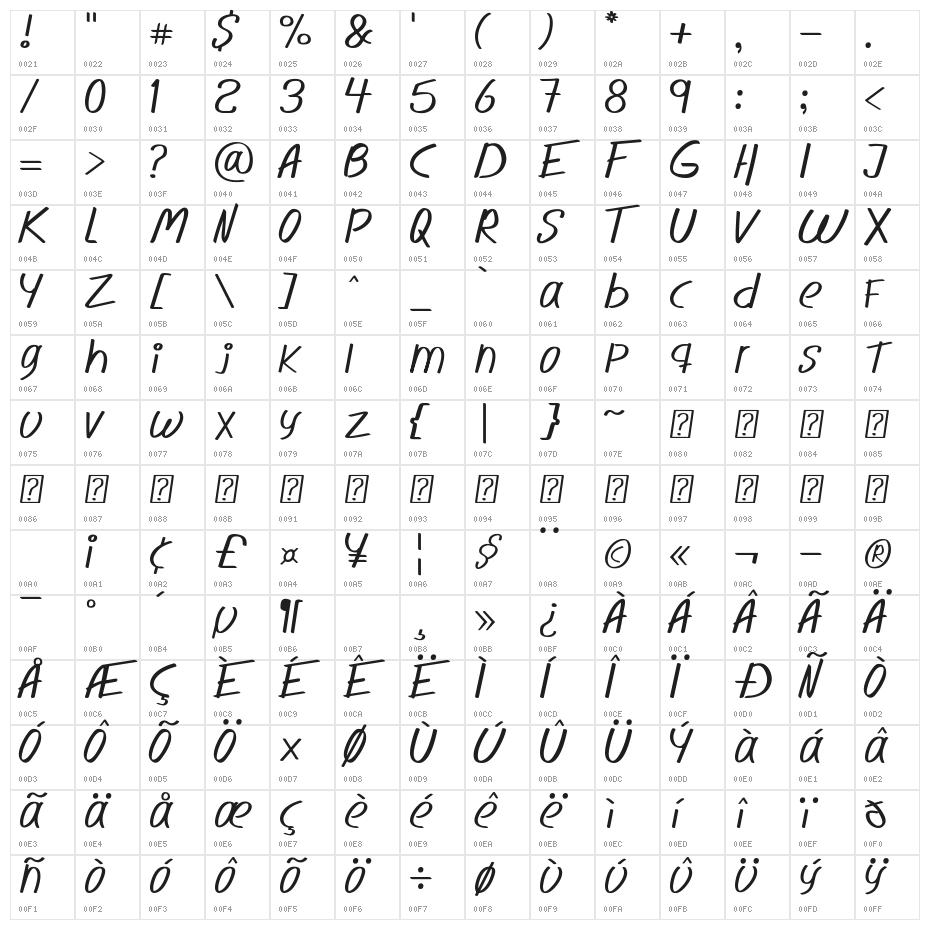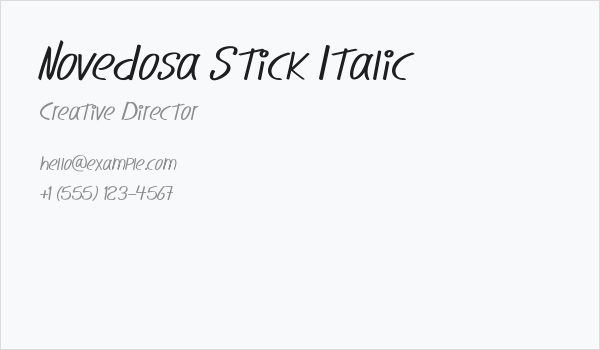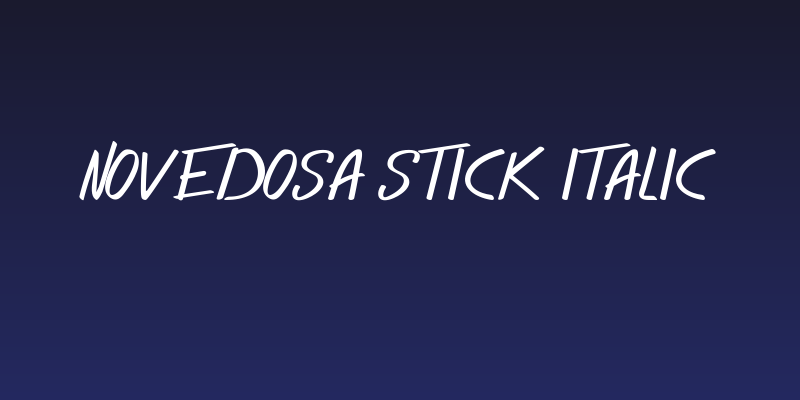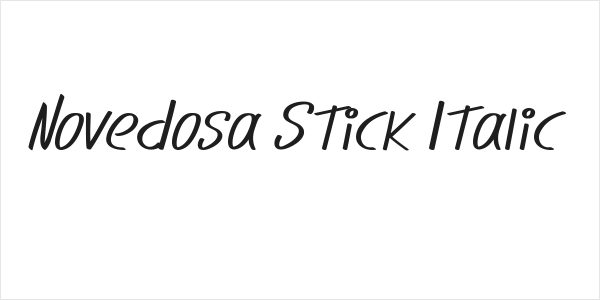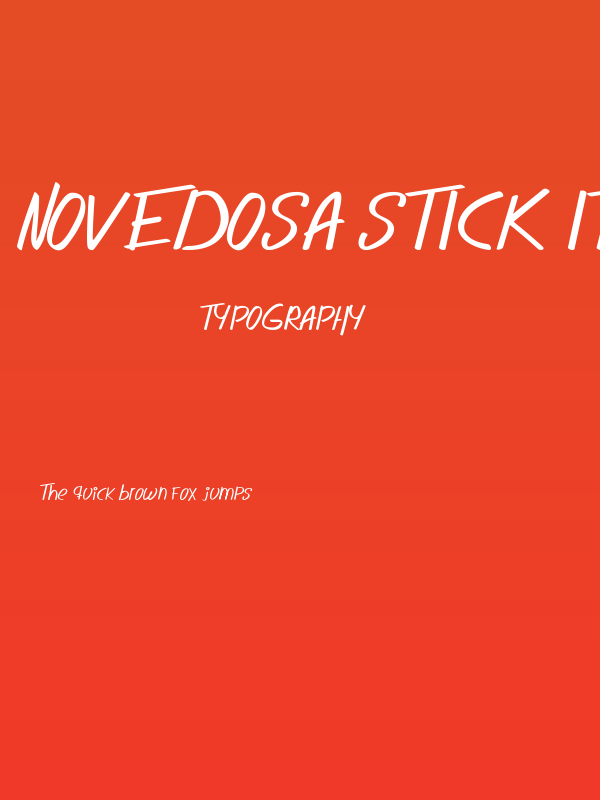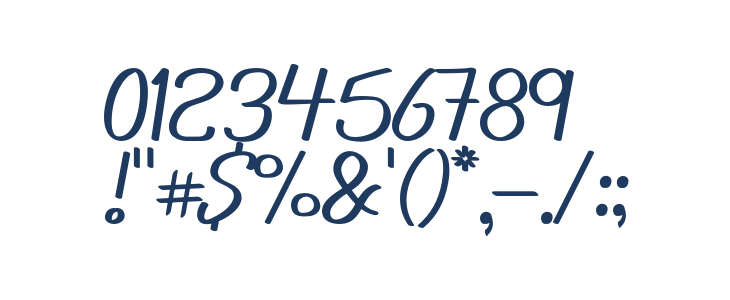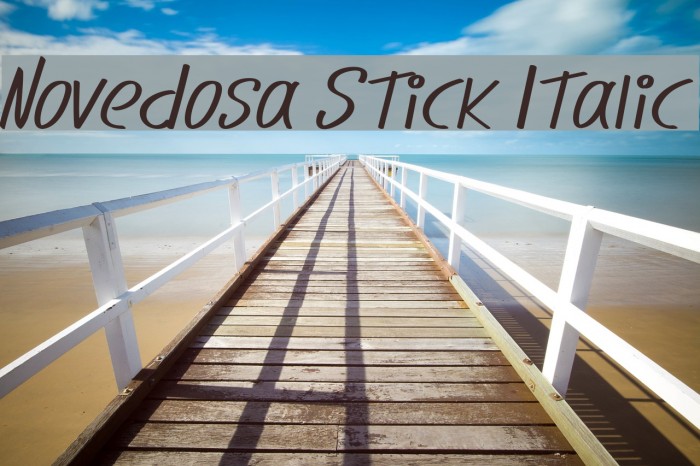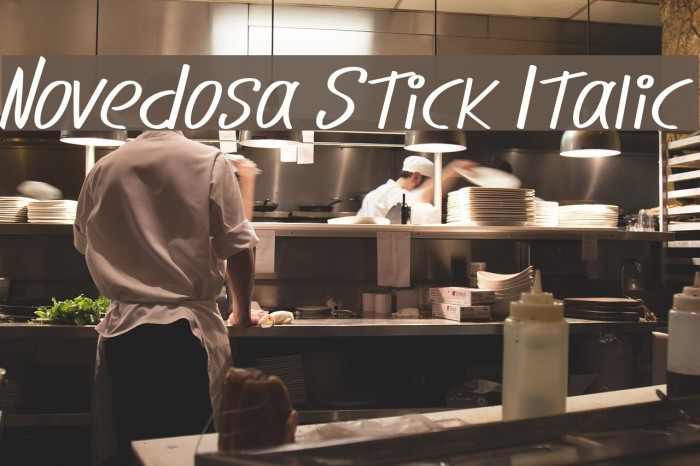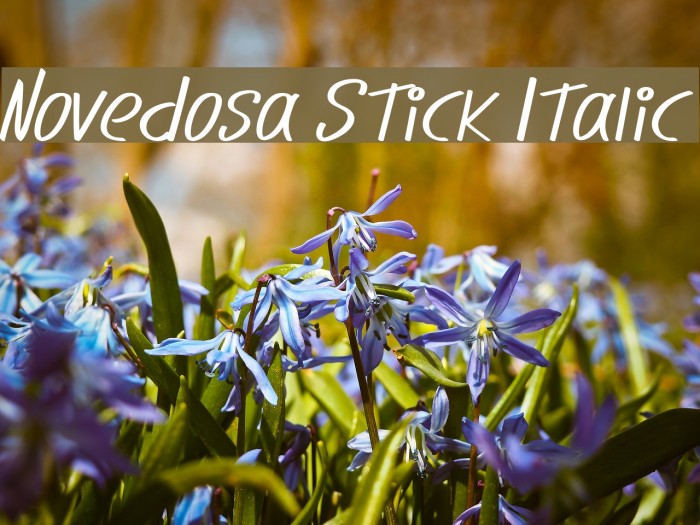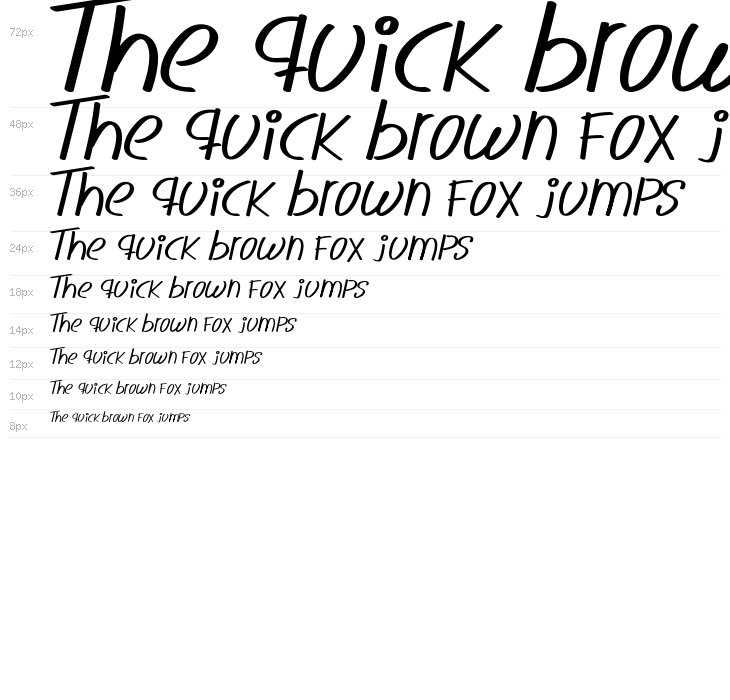
Novedosa Stick Italic Font
Novedosa Stick Italic Description
This font features a dynamic and energetic style with a handwritten appearance. The letters are slightly slanted, giving it an italicized look, which adds to its fluidity and movement. The strokes are smooth and consistent, with a moderate thickness that maintains readability while conveying a casual and approachable feel. The uppercase and lowercase letters are well-balanced, and the numerals are clear and distinct. Special characters are included, maintaining the same playful and informal style. This font is versatile, suitable for projects that require a personal touch.
| Proposed Projects | Ideal for greeting cards, invitations, personal branding, and creative projects that require a casual and friendly tone. |